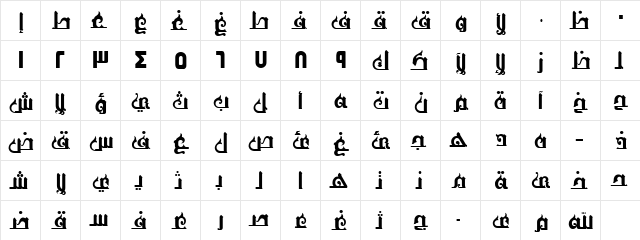
ALW Cool Thaghr1. Normal
Design Context for ALW Cool Thaghr1. Typeface
ALW Cool Thaghr1. takes a measured approach to typography — its balanced proportions and neutral character make it a reliable workhorse for both digital and print work.